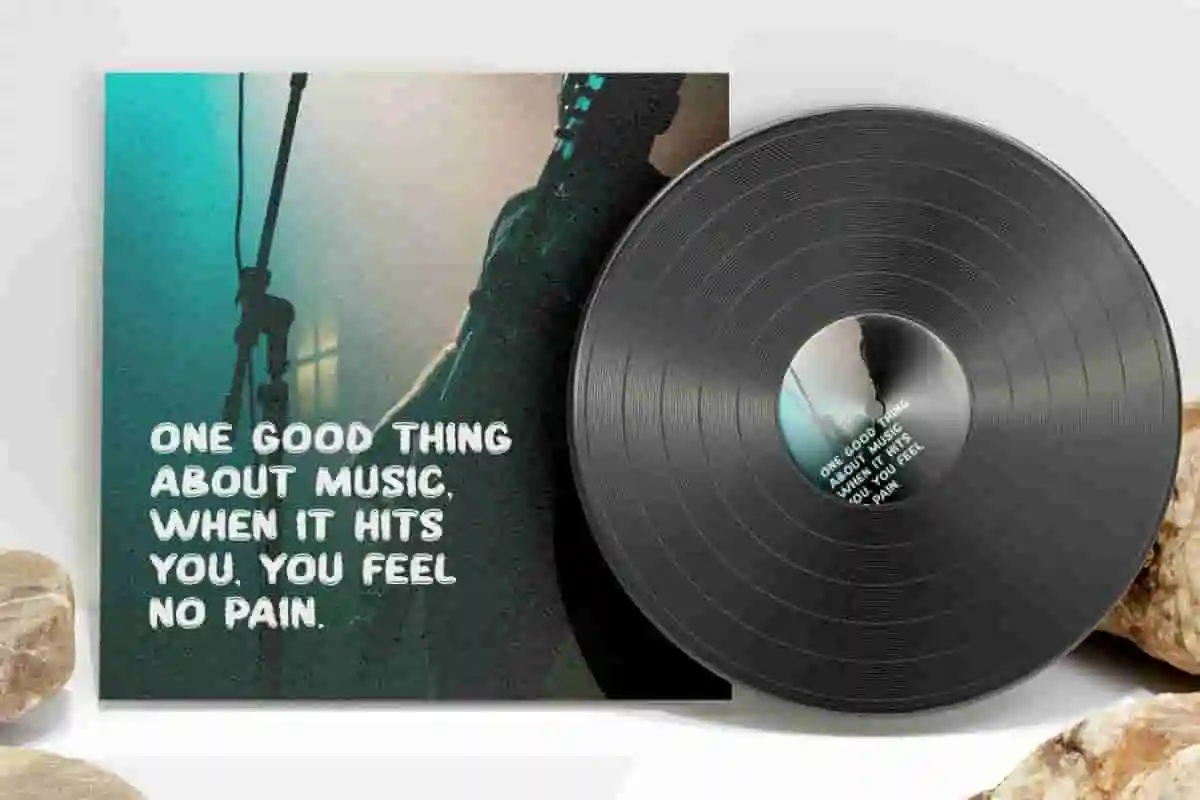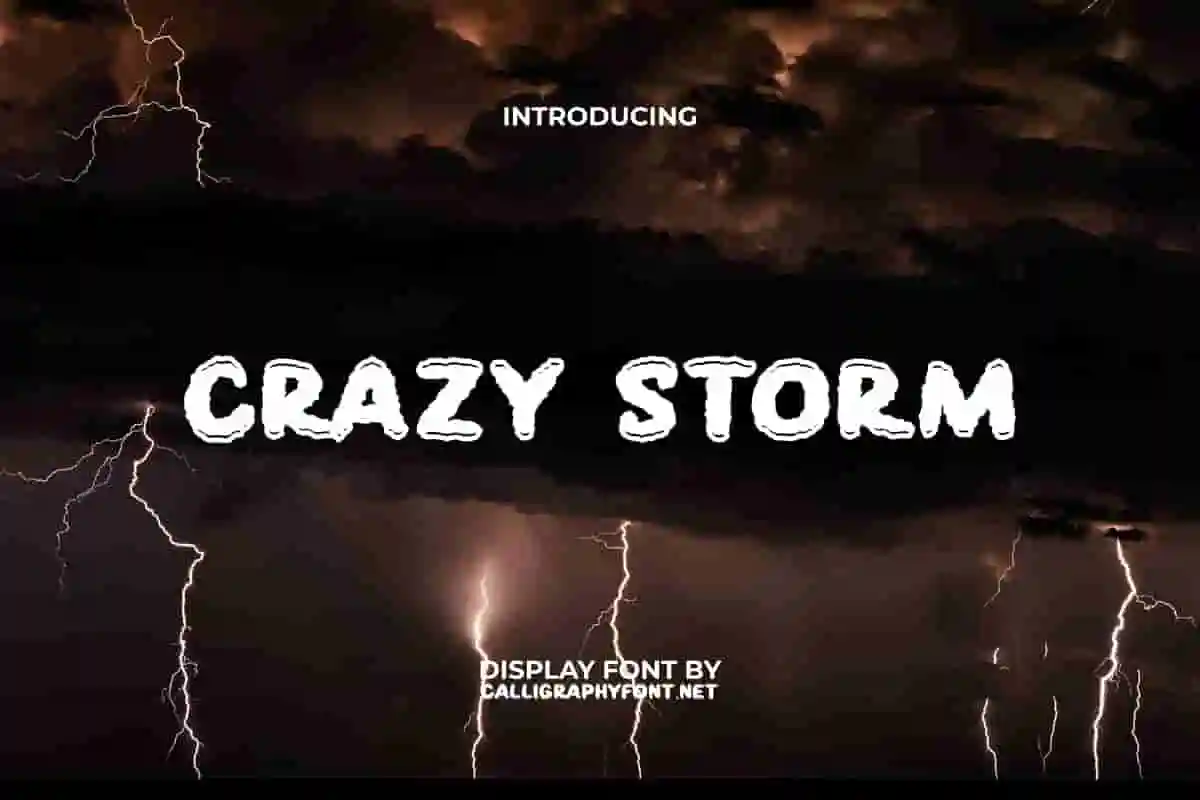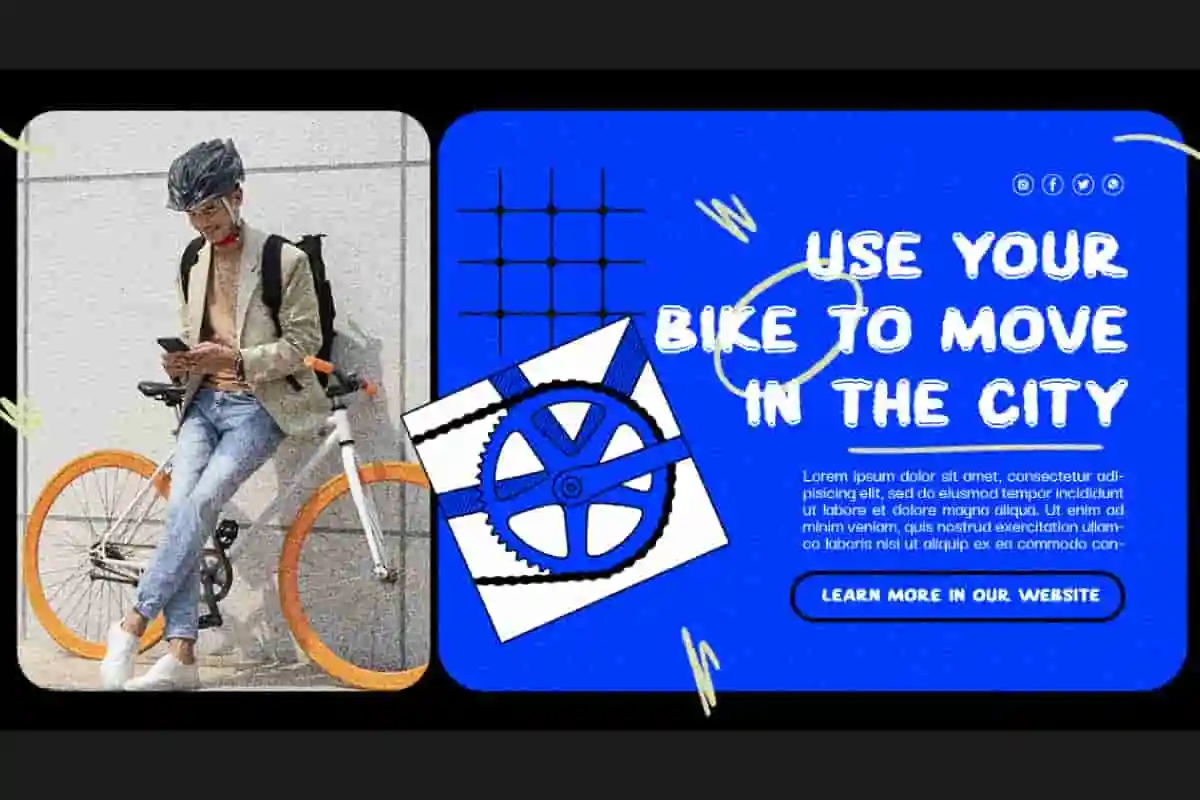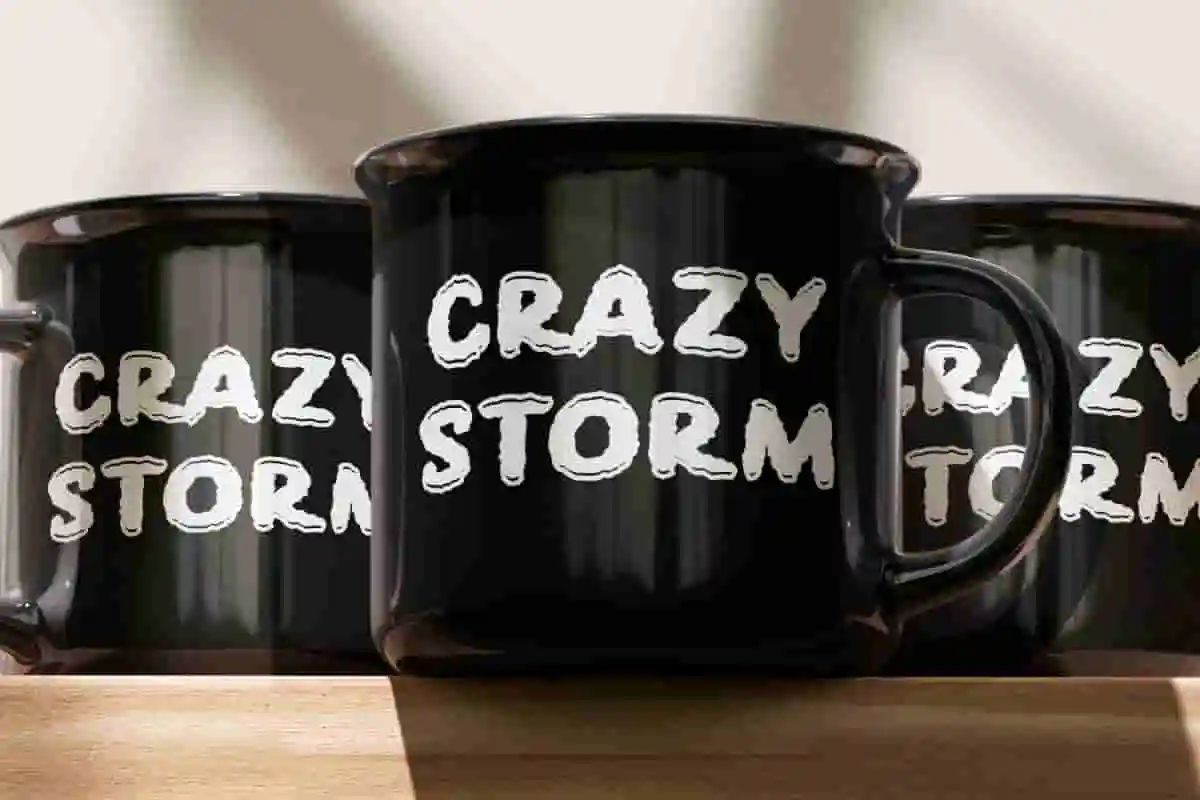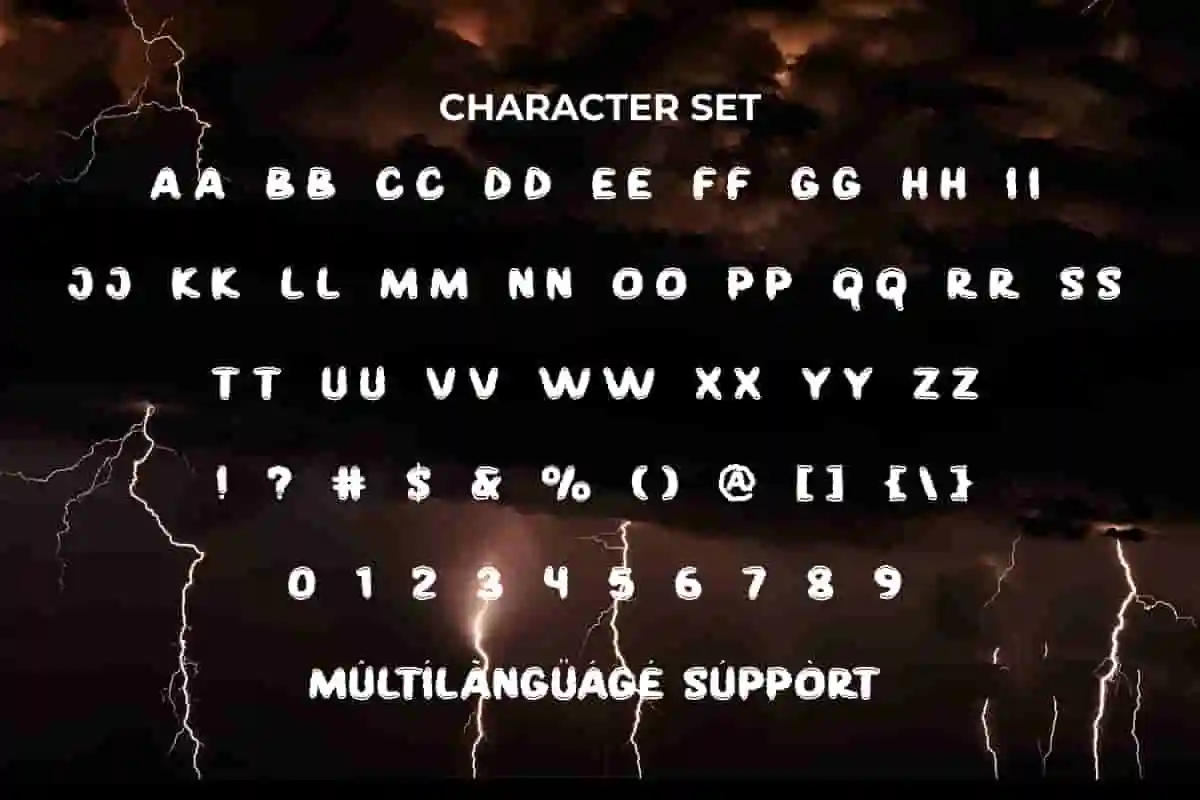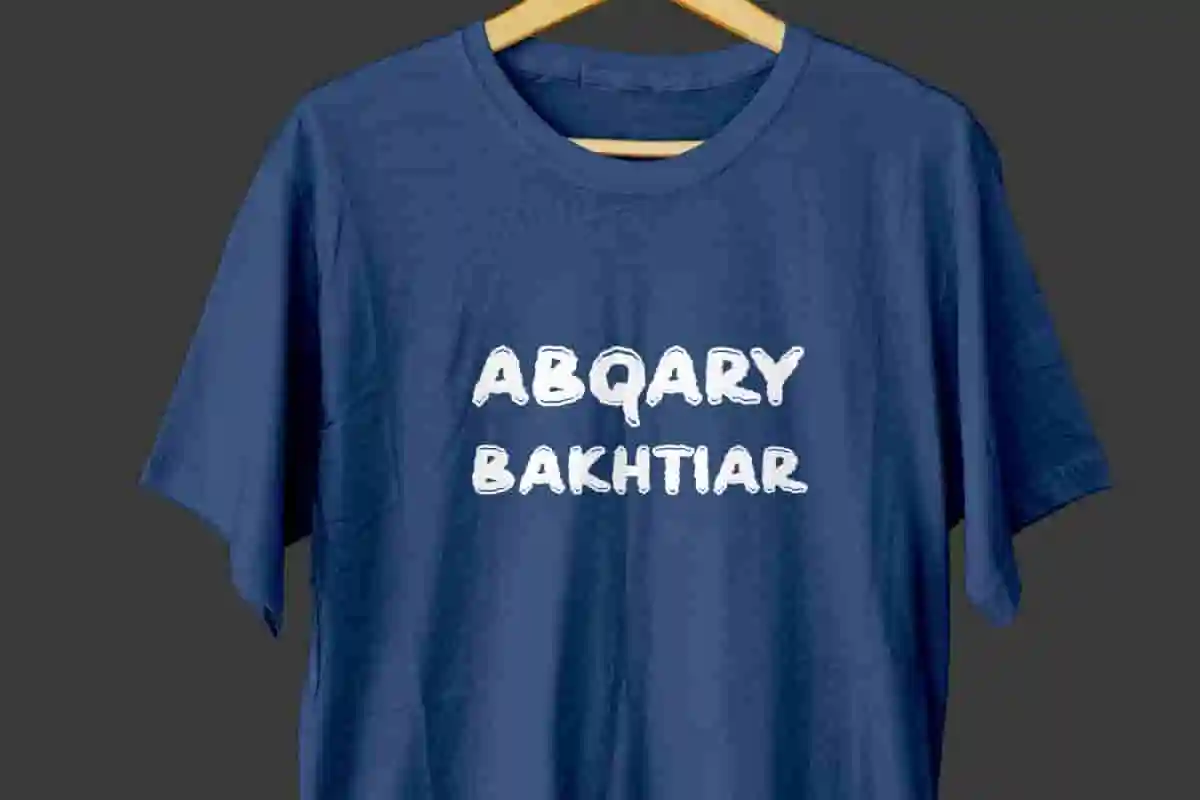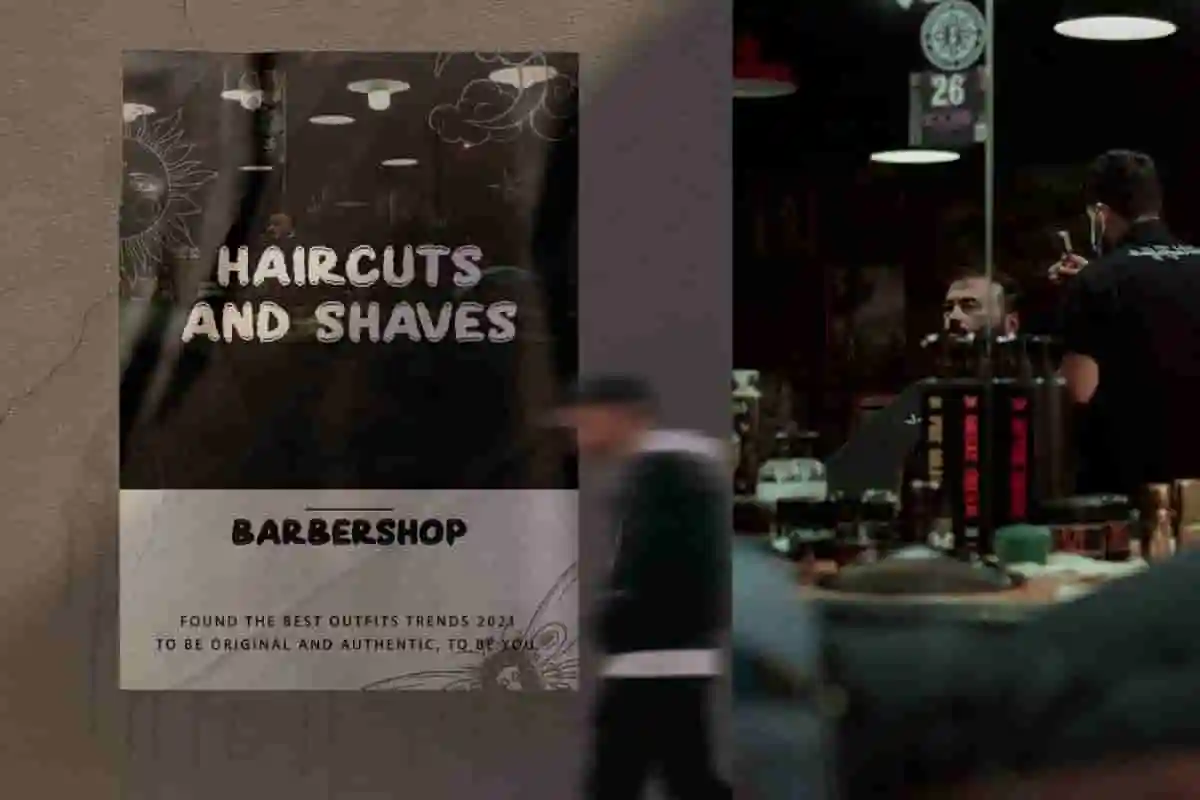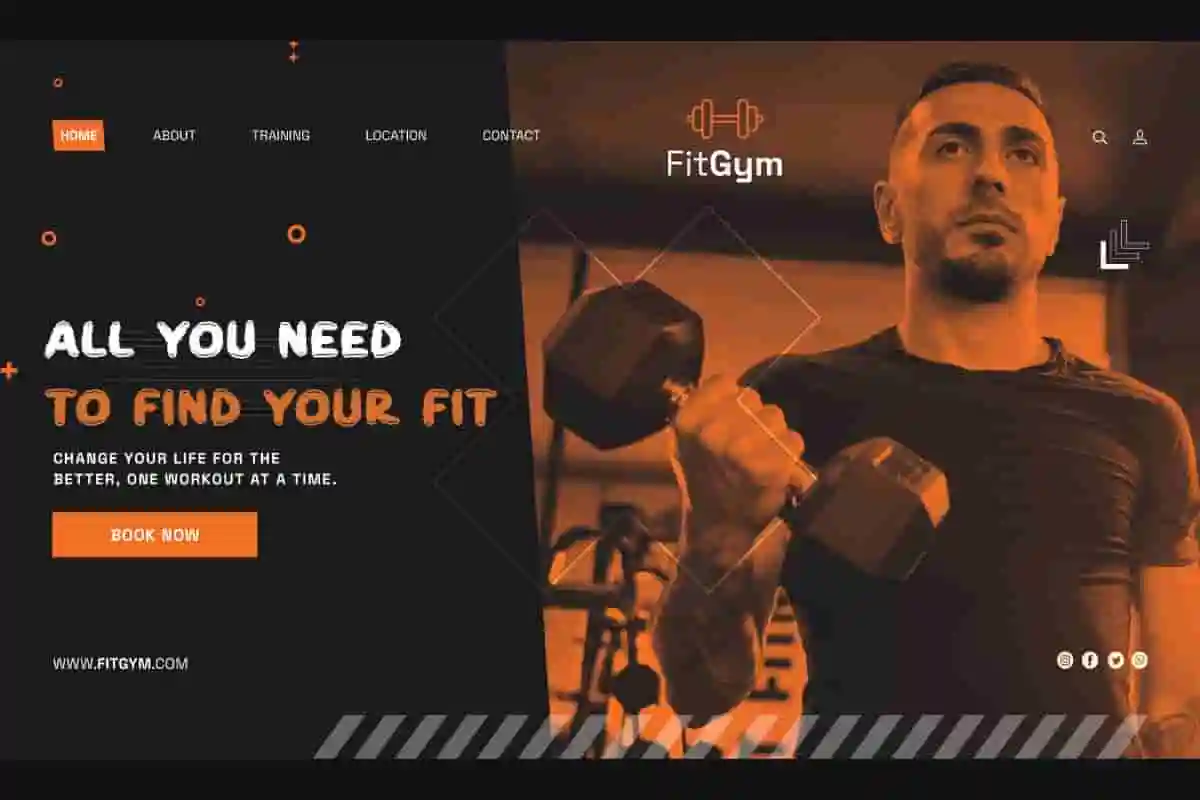
Crazy Storm Display Font
Crazy Storm Font is a handcrafted cloud shapes font that looks unique, created to bring different variations of letters.
Crazy Storm Font is a playful and unique cartoon decorative display font inspired from cloud shapes. Created with a dark and creative storm cloud style resulting in a slightly rough and irregular bold letter shape. It looks great for album cover, banner, billboard, blogs, brochure, headers, heading, label tags, logos, poster, product packaging, quotes, stickers, t shirt screen print, title, and websites.
If you’re looking for a typeface that breaks the rules and commands attention, Crazy Storm Display Font is here to electrify your designs. This bold display font is crafted for creatives who aren’t afraid to go big, loud, and unforgettable.
Crazy Storm combines edgy shapes, dynamic strokes, and powerful letterforms that instantly make your message stand out. Whether you’re working on posters, music covers, sports branding, gaming projects, or promotional campaigns, this font delivers the high-impact look your audience can’t ignore.
In the fast-paced world of design, your typography needs to rise above the noise. Crazy Storm Display Font isn’t just a font—it’s a design weapon that transforms plain words into an unforgettable experience. With its striking aesthetic and fearless style, it empowers designers, brands, and creators to craft visuals that demand attention.
From edgy streetwear brands to music festivals, from esports logos to powerful advertising campaigns—Crazy Storm Display Font is your go-to tool for bold expression.
Crazy Storm Display Font has a bold and mysterious style that reflects the nuances of bad weather, providing a thrilling and cool experience. This font is perfect for accessories and merchandise, apparel, bands, barbershop, fitness, game, graphic design, handicraft, men’s fashion, movie, music, photography, printing, publishing, and many more!
Crazy Storm Display Font comes with a complete set of ALL CAPS for Uppercase and Lowercase Basic Characters, Number, a large range of Punctuation and Symbol. It is supported with multilingual characters and ready to use both on Windows machine or Mac with simple installations. It’s tested to work well in the Adobe Apps (Illustrator, Adobe InDesign, Adobe Photoshop) CorelDraw, and others. PUA Encode Characters means you can access all the characters easily – Fully accessible without additional design software.